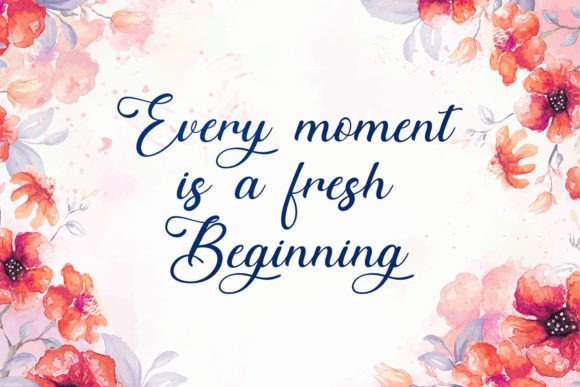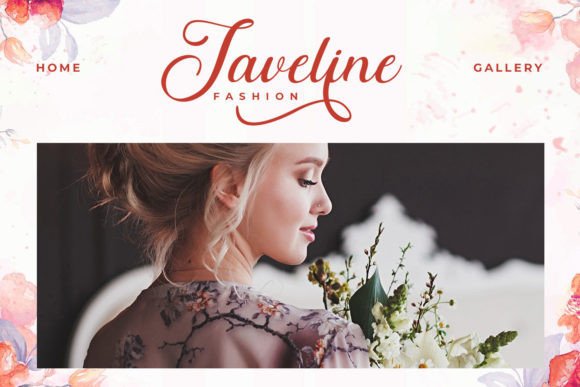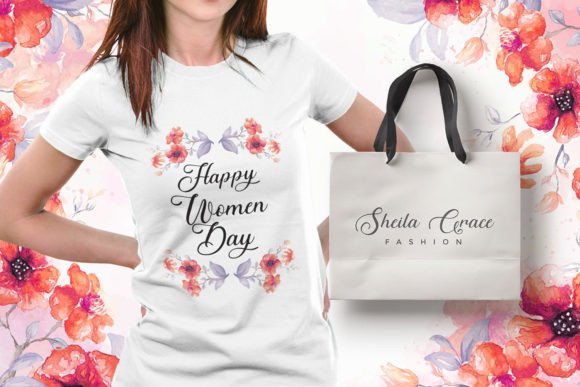
Introduction to Hello Adelyne Font
Hello Adelyne is a lovely script font with a professional feel.
It looks modern, feminine, catchy, and easy to use This font is a great choice for watermarks, weddings, signatures, logos, business cards, and many other design projects.
Hello Adelyne Font offers exceptional quality and versatility, making it a valuable addition to your design toolkit. Whether you’re creating for personal projects or commercial use, Hello Adelyne Font delivers professional results.